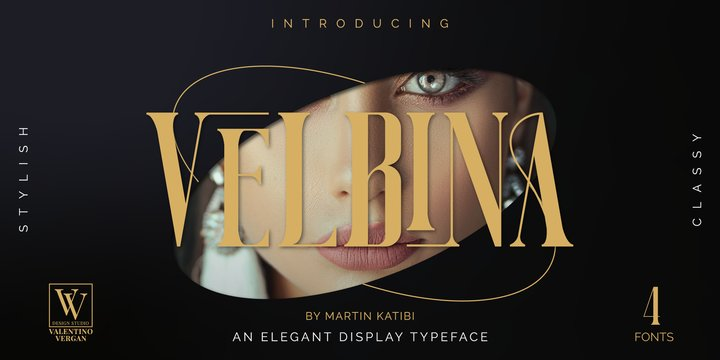
Velbina Font
VelbinaVelbinaVelbinaIntroducing “Velbina” – An elegant display typeface.
Velbina is a beautiful luxurious typeface, which comes with creative and elegant ligatures, plus unique alternative characters. The Velbina typeface has a sophisticated and professional look and feel, which makes the typeface classy and chic. The Velbina typeface also comes in two styles, Regular and Stencil, each style has an oblique version.
The Velbina typeface was built with OpenType features that include creative ligatures and unique alternative characters. The Velbina typeface also comes with multilingual support for languages such as: Danish, English, Finnish, French, German, German (Switzerland), Norwegian Bokmål, Norwegian Nynorsk, Portuguese, Spanish, Swedish, Swiss German.
The Velbina typeface has a stylish design making it a very versatile font, the font can cover a wide range of projects such as: brand packaging, brochures, magazines, logos, poster design, Instagram templates, wedding invitations, quotes, blogs, headers, social media, advertisements and much more.